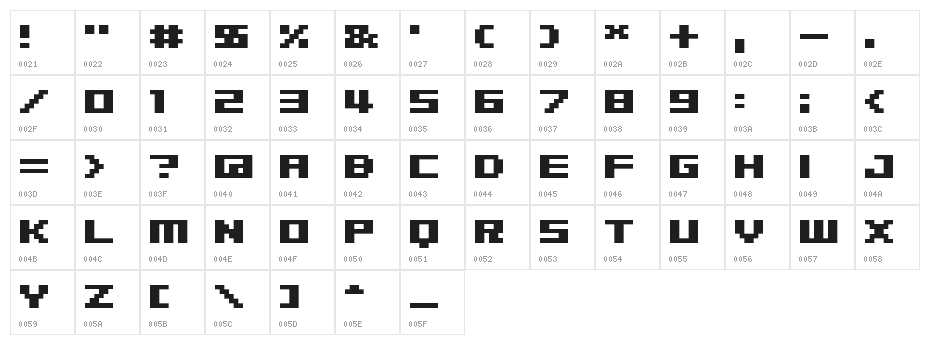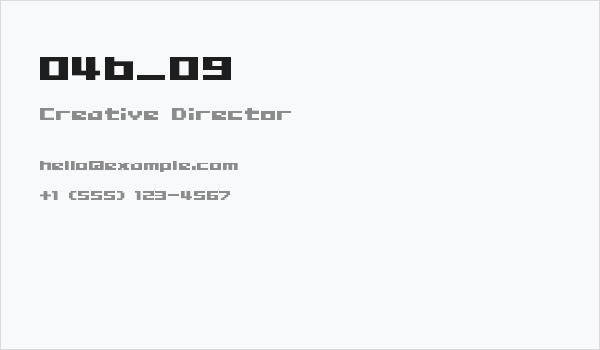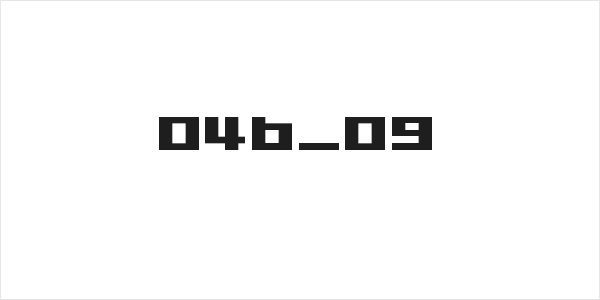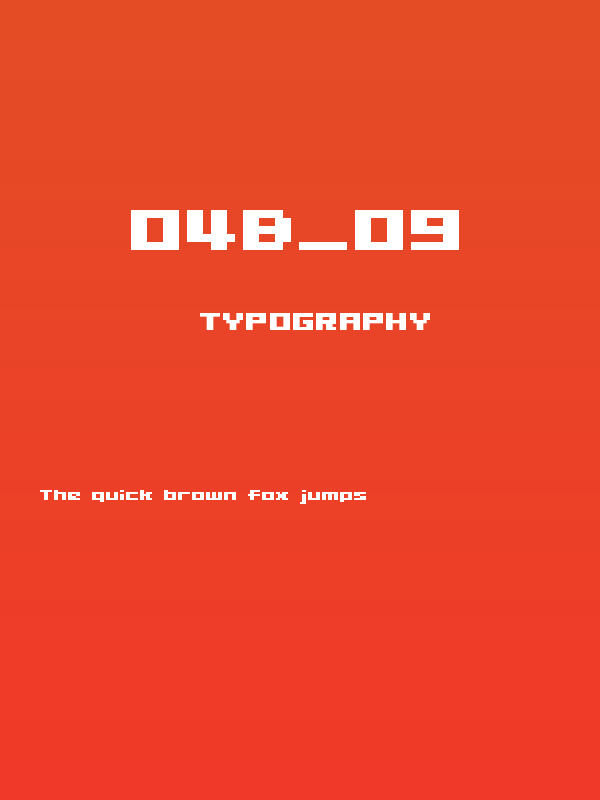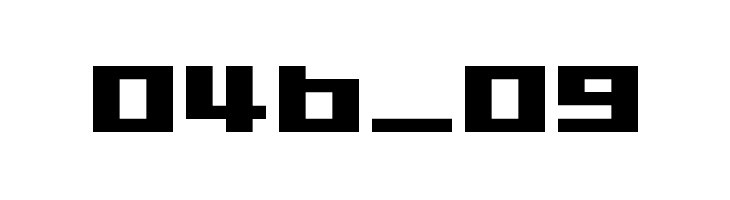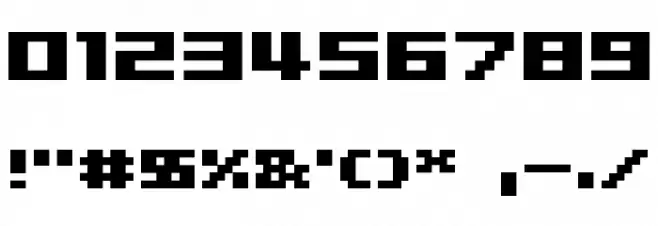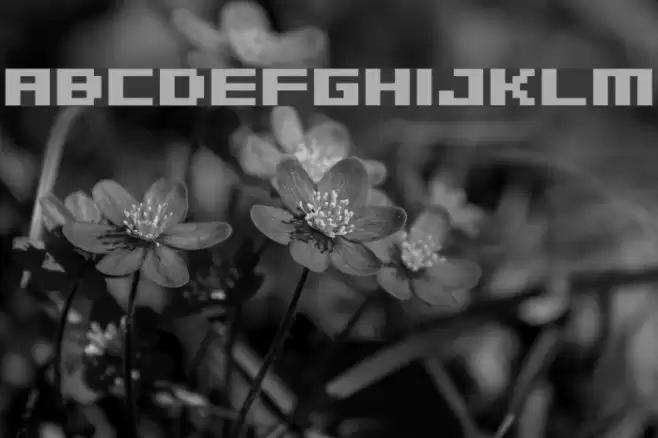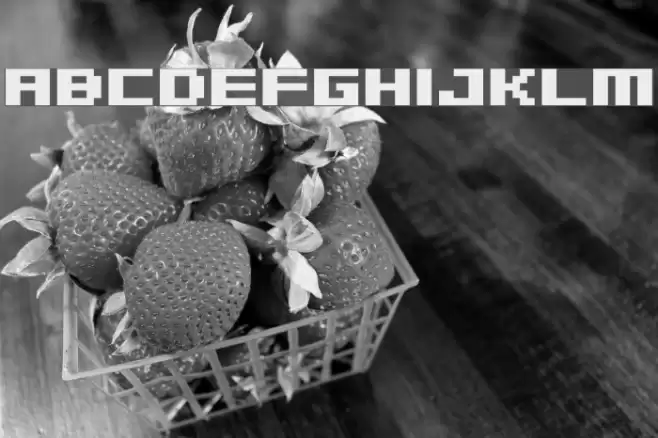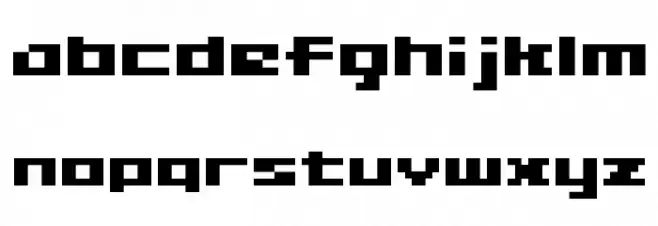
04b_09 Font
| Style général | Retro, Digital |
| Cas d'utilisation | Headlines, Logos, Digital displays |
| Projets proposés | Ideal for video game design, retro-themed graphics, digital art projects, and any creative work that seeks to evoke nostalgia for early computing and gaming eras. |